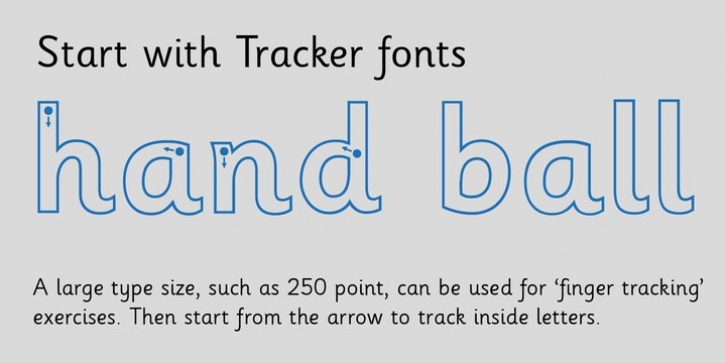
The three upright 'infant' fonts developed to meet the demand for letters to produce pupil material for handwriting as well as for reading. Letters have extended ascenders and descenders ideal on screen and print. They facilitate word recognition. The exit strokes link words together visually, also crucially, they space the letters for improved legibility.
The 'joined' font puts the skills gained into practice producing joined-up handwriting.
Together these typefaces provide a valuable resource for Teachers to create consistent material across the curriculum.
Sassoon Infant Tracker B font:
This font with its direction arrows helps pupils to start in the correct place. Motor movements can be refined by keeping inside the line. When starting and direction is no problem, the arrow font can be dropped and the Dotted font used.
Sassoon Infant Dotted B font:
Writing over the dots of this font refines motor skills. The aim here is to give confidence by reinforcing starting points, exits and to now encourage fluidity.
Sassoon Infant font:
With some words in this font and a baseline beneath to copy onto, pupils can use their learned starting points and exit strokes to write freely along the baseline - still unjoined. Once learned, this leads to spontaneous joins along the baseline leading logically to a joined-up hand.
Sassoon Joined font:
Having learned to write letters with correct starts and exits, this is when the joined font for teaching handwriting can be used.
With some words in this font and a baseline beneath to copy onto, pupils can use their learned starting points and simply extend their exit strokes to make joined-up writing. The default joins the font provides are recommended, however there are alternative letterforms that are so important for some Teachers which can be accessed. Create 'pen lifts' anytime too!